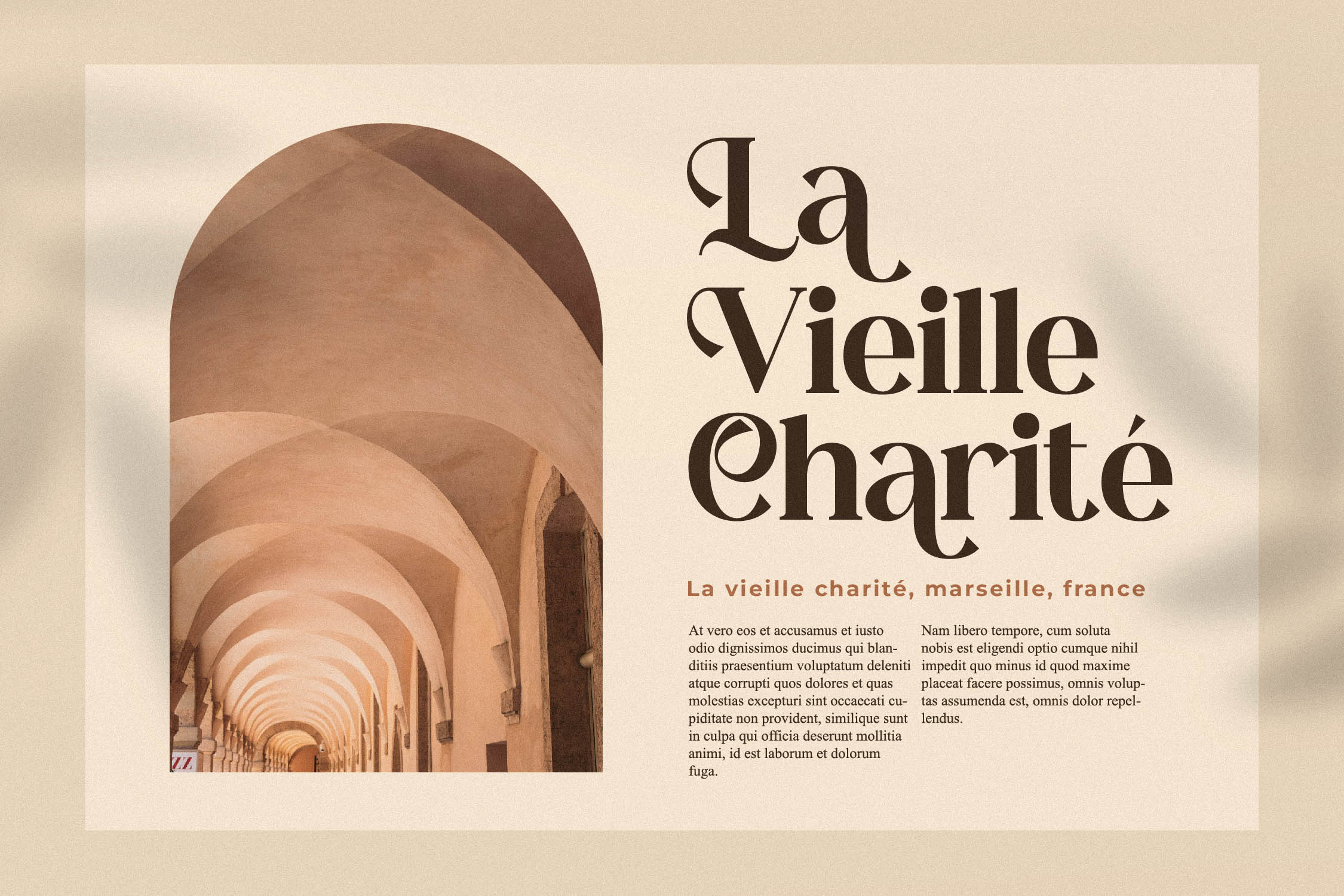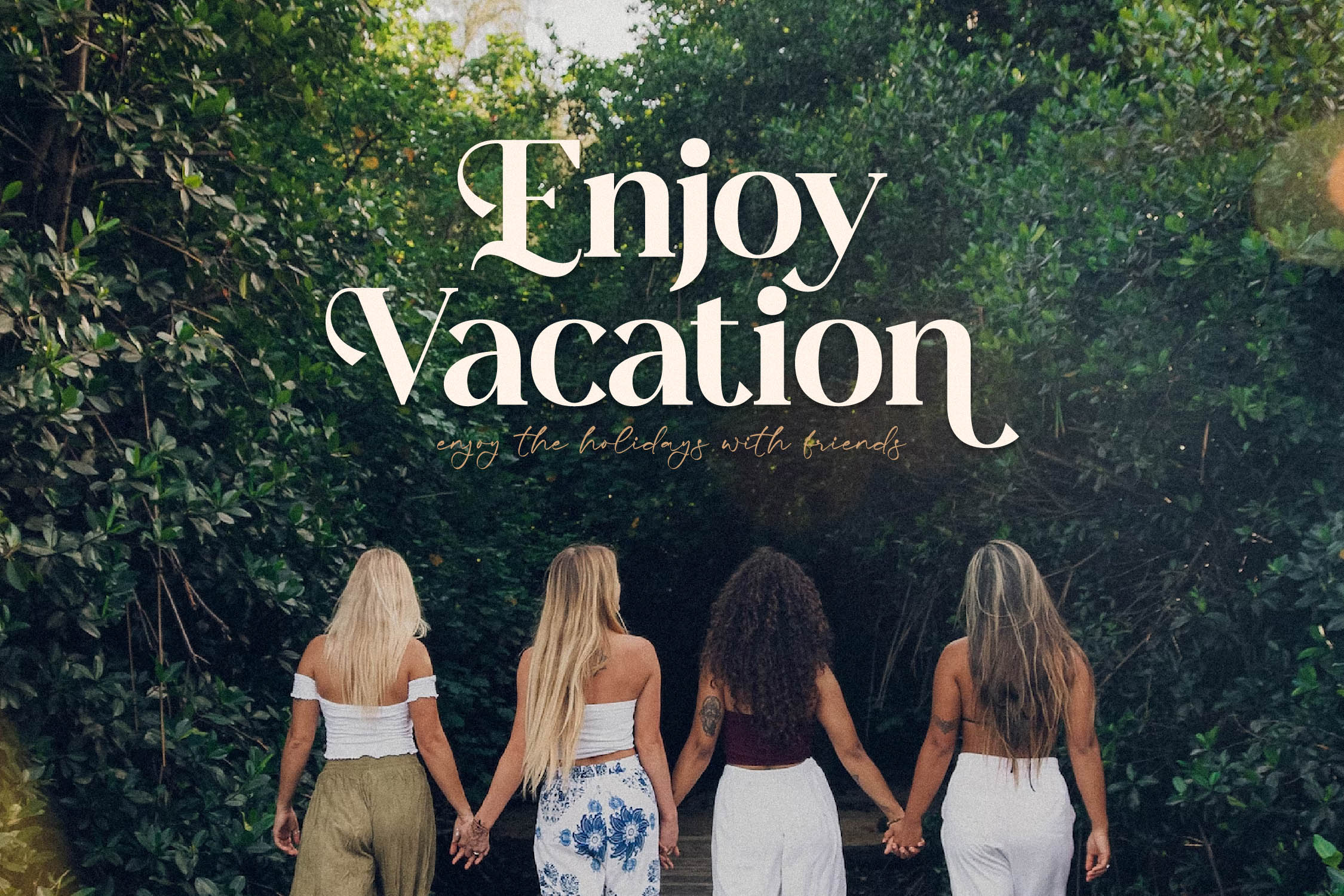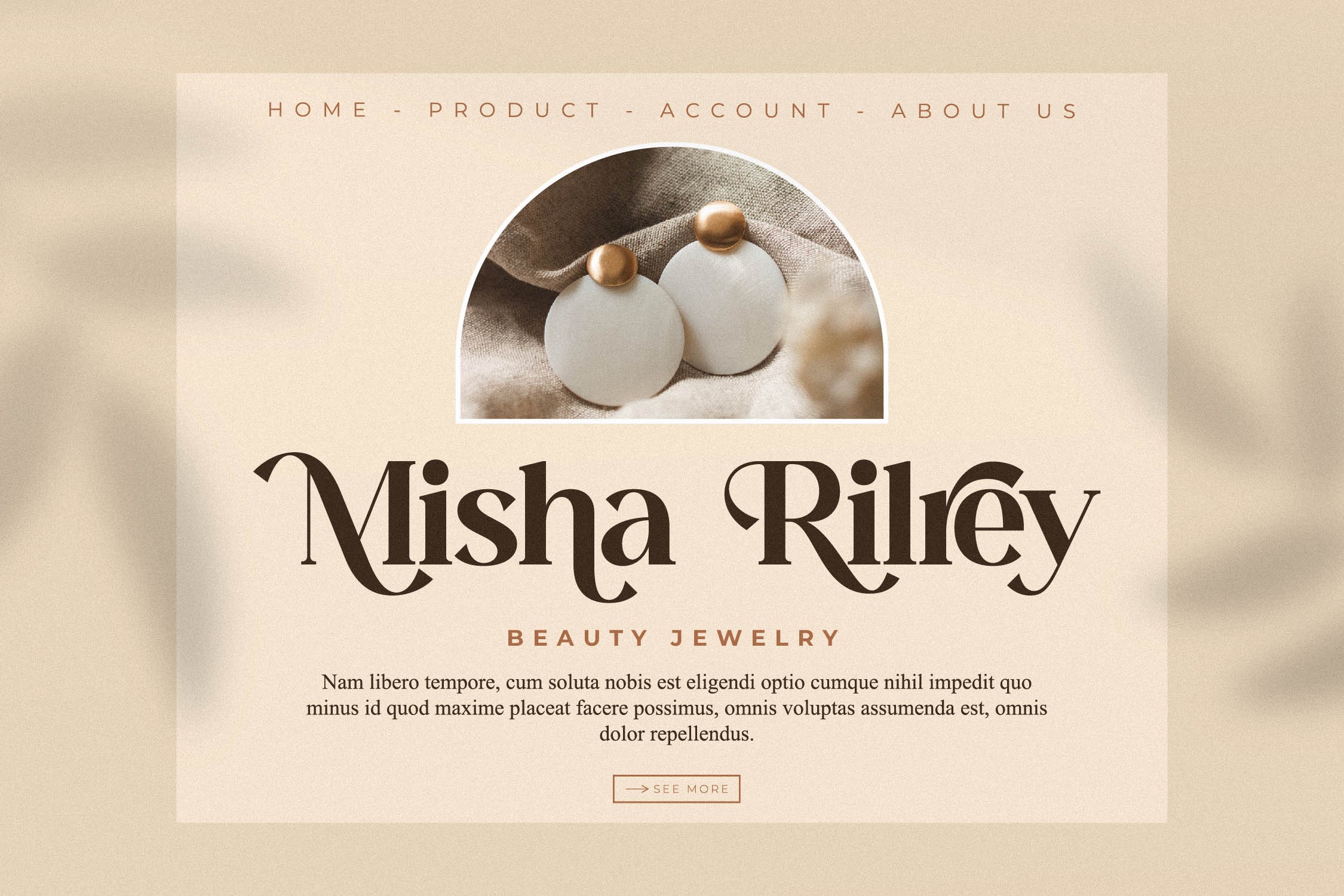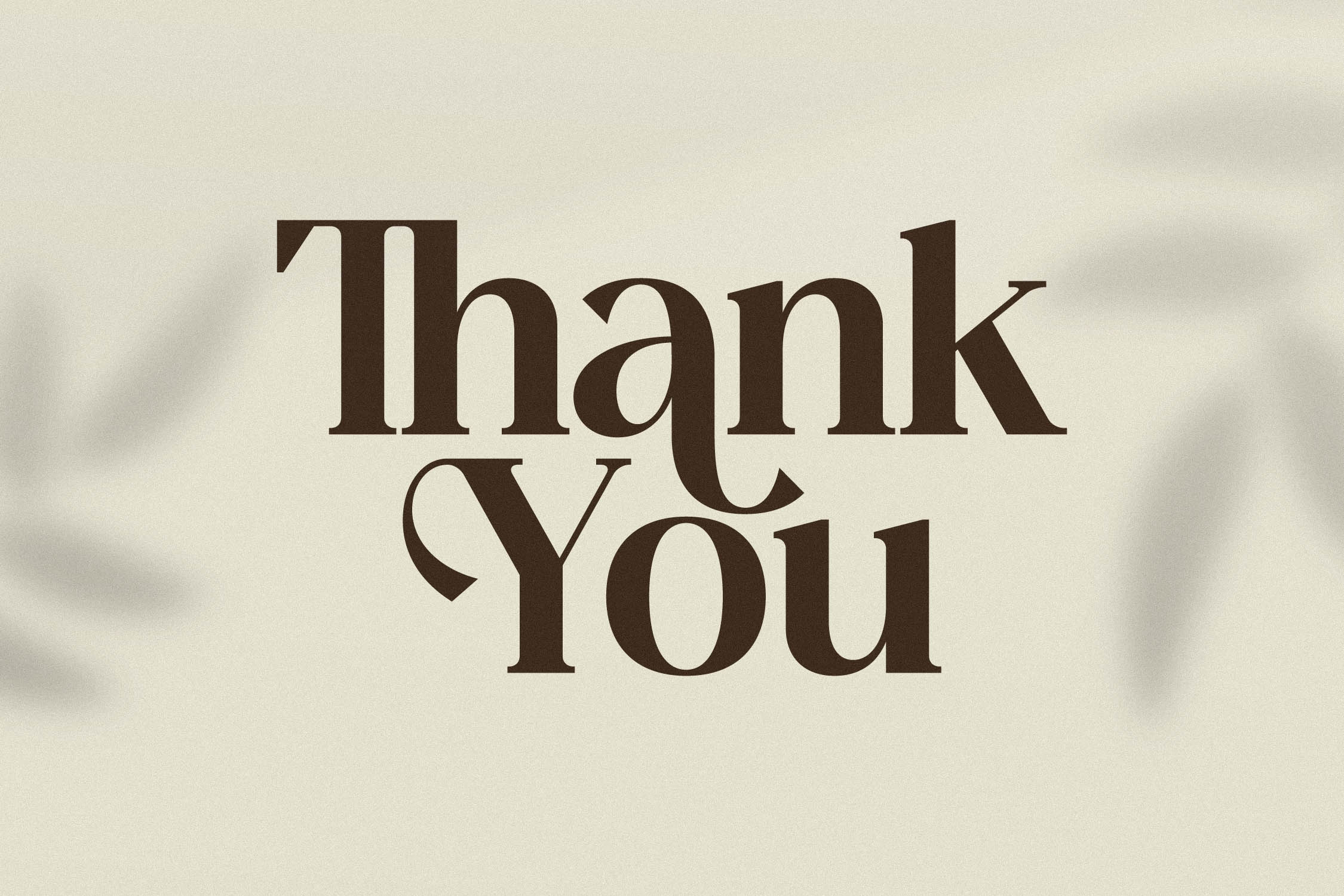
Lost Emerald Font
Lost Emerald Serif Font is a serif modern and classic typeface that has own unique style & modern look. This typeface is perfect for an elegant & luxury logo, book or movie title design, fashion brand, magazine, clothes, lettering, quotes, and so much more.